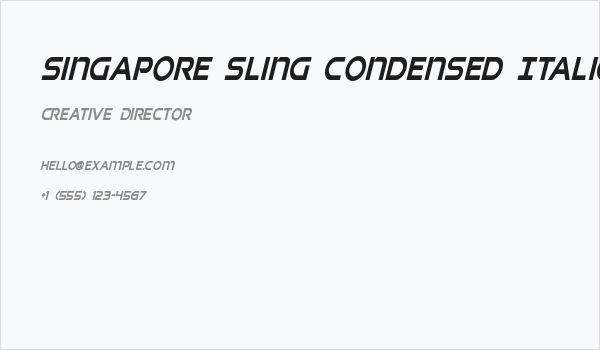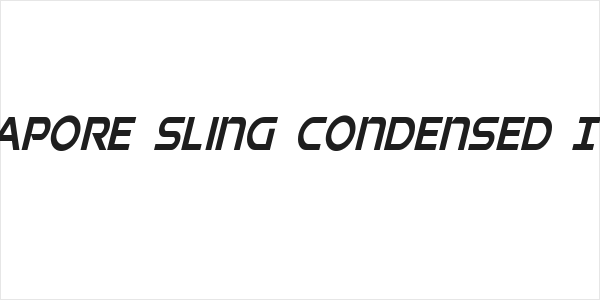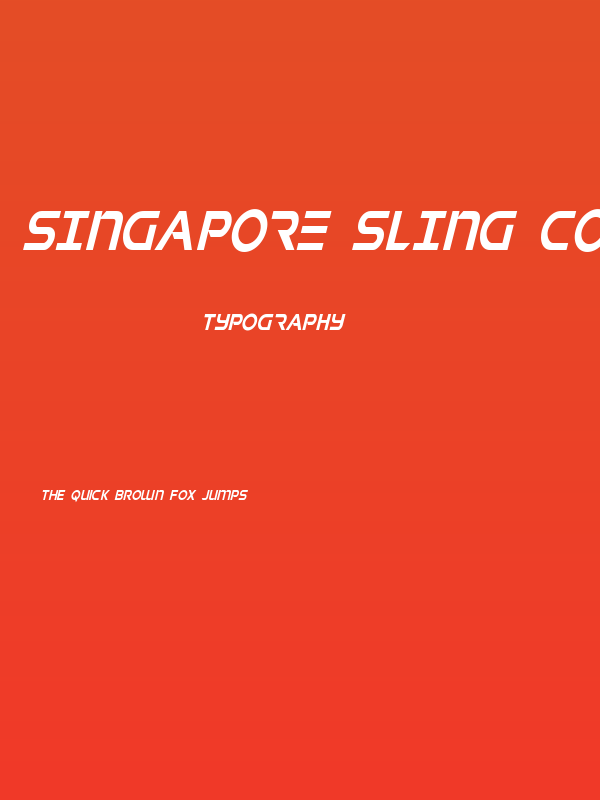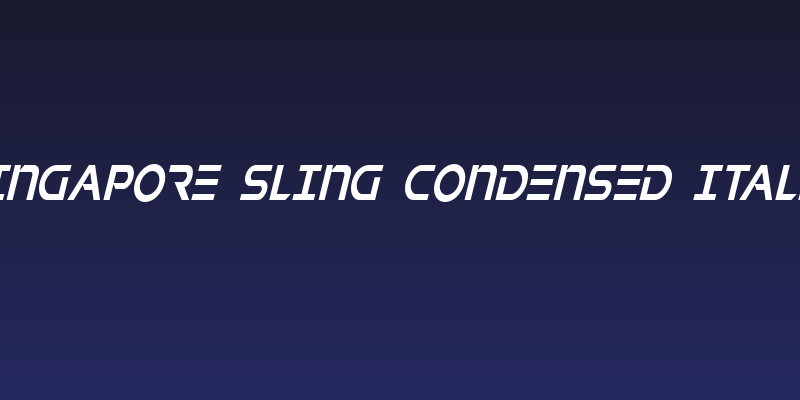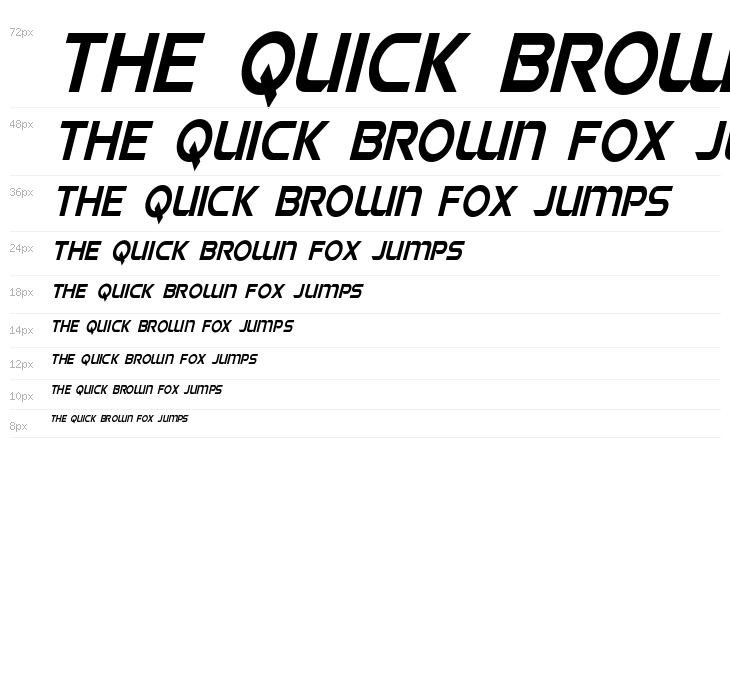
Singapore Sling Condensed Italic Font
Singapore Sling Condensed Italic Description
This font features a sleek, modern design with a condensed and italicized style. The characters are bold and angular, giving a sense of speed and dynamism. The uppercase letters are particularly striking, with sharp edges and a forward-leaning posture that suggests movement. The lowercase letters maintain this aesthetic, providing a cohesive look across the typeface. The numerals are equally bold, with a consistent weight that complements the letters. Special characters are designed with the same attention to detail, ensuring they fit seamlessly with the rest of the font. Overall, this font exudes a contemporary and energetic vibe, making it suitable for a variety of creative applications.
| Proposed Projects | Ideal for sports branding, automotive advertisements, tech company logos, and dynamic poster designs. |